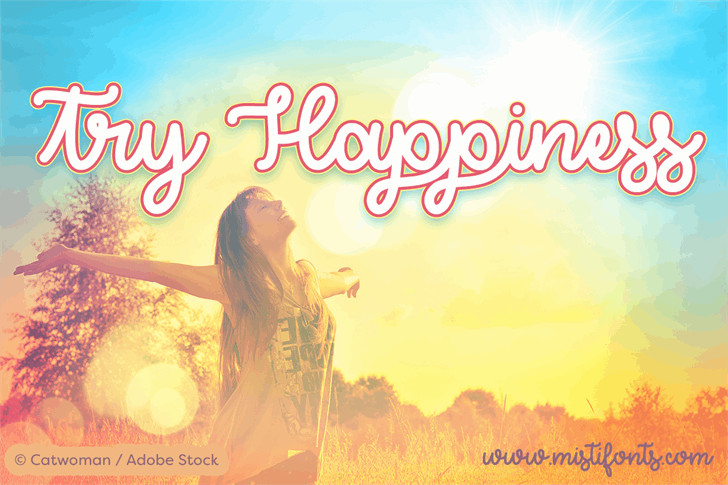
Free Try Happiness Font
Featuring a free try happiness font. Download this free typeface from the original source of Font Space. Showcase your designs like a graphic design pro by adding a new touch with this fancy font.